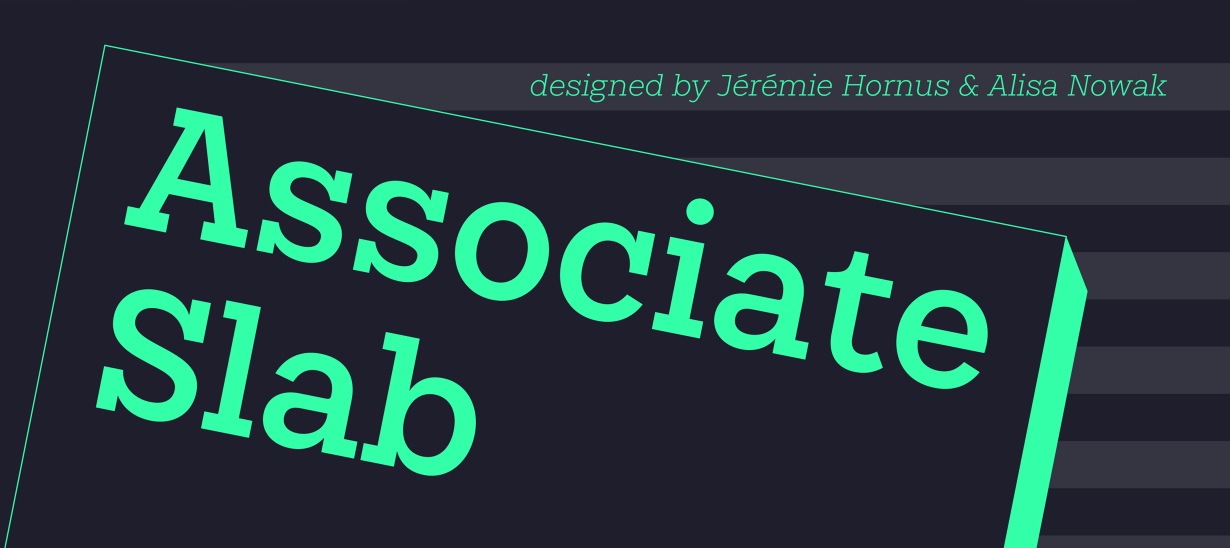
Associate Slab Font
Associate Slab Font is perfect for law firm branding, corporate presentations, professional services marketing, business consulting materials, academic publications, financial reports, executive communications, institutional branding, professional newsletters, and authoritative editorial content.
What makes Associate Slab Font exciting is its powerful combination of traditional serif authority with modern slab serif confidence that commands immediate respect and attention. The font features robust letterforms with strong serifs that convey stability, trustworthiness, and professional expertise. Its carefully balanced proportions and commanding presence make it perfect for organizations that need to communicate credibility, experience, and institutional authority while maintaining contemporary relevance and visual impact across all professional communications.
Associate Slab Font family includes comprehensive weights ranging from Light to Heavy, typically featuring Regular, Medium, Bold, and Black variations with corresponding italic styles. The family often includes condensed versions and extended character sets that provide maximum flexibility for professional document design, corporate identity systems, and institutional branding applications requiring hierarchical text structures.